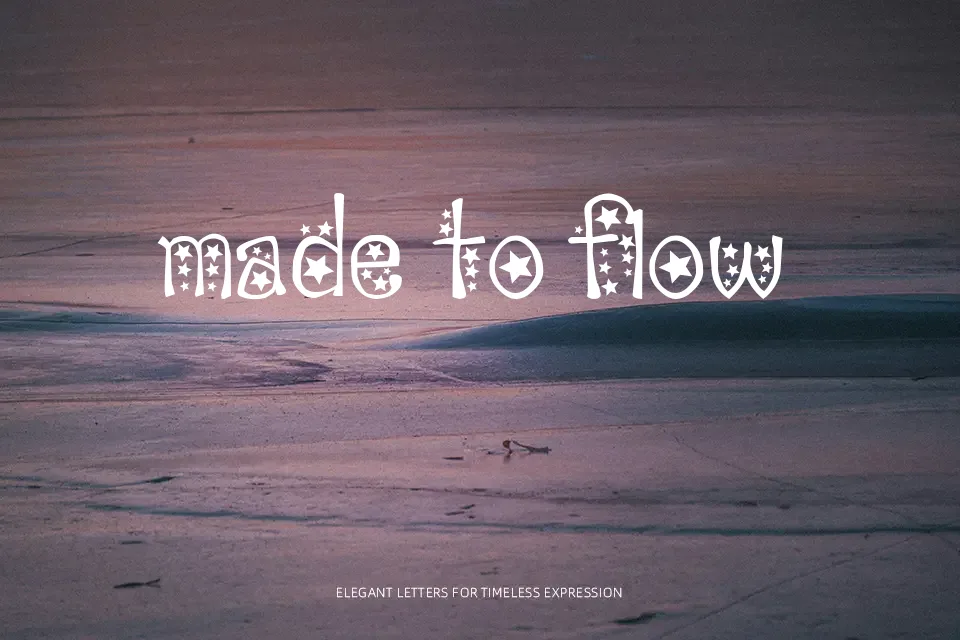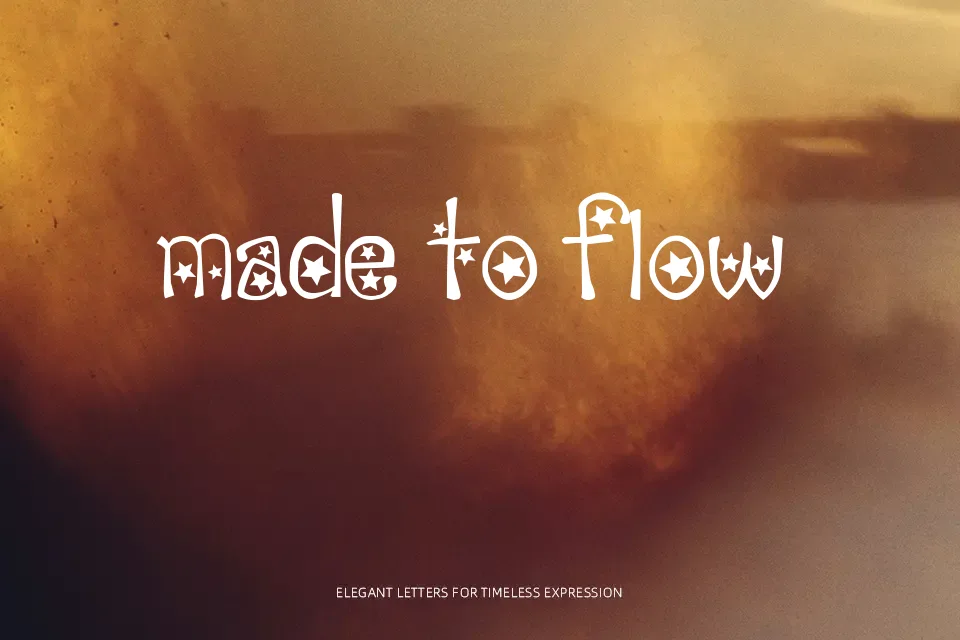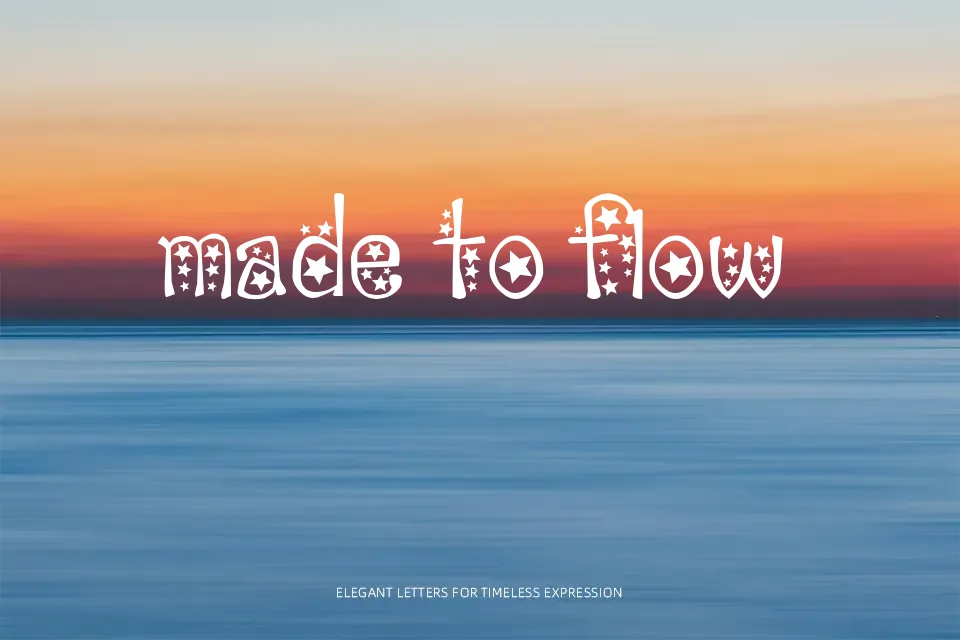
Sabrina Font
Designed by Carrie Ann Bishop
Characterized by its decorative structure, Sabrina Font brings a highly personal and expressive handwritten aesthetic to typographic designs. The flowing letterforms display sweeping strokes with noticeable contrast, creating an energetic yet romantic visual rhythm. Its proportions are slightly varied, giving it an authentic handwriting feel, while the balanced spacing maintains decent legibility in medium display formats. The loose, curving terminals enhance its friendly appeal. However, these same decorative details become less effective at smaller sizes, reducing continuous reading comfort. The expansive strokes help maintain clarity in larger headlines, making this typeface a striking choice for boutique packaging, elegant event invitations, and creative cosmetic branding.
Best For: boutique product packaging, elegant wedding invitations, cosmetic branding, romantic apparel graphics
Not Ideal For: long paragraph text, small interface labels, dense editorial layouts
Perfect for branding, headline, and invitation, with a creative and decorative style.